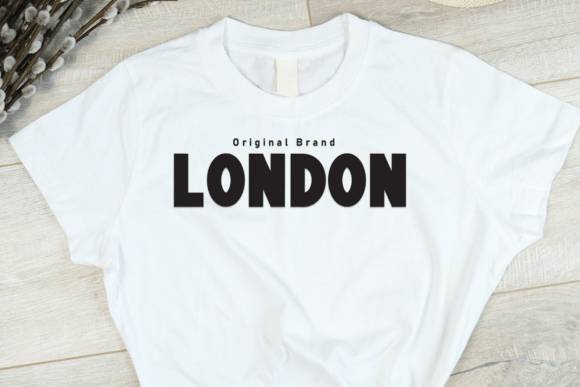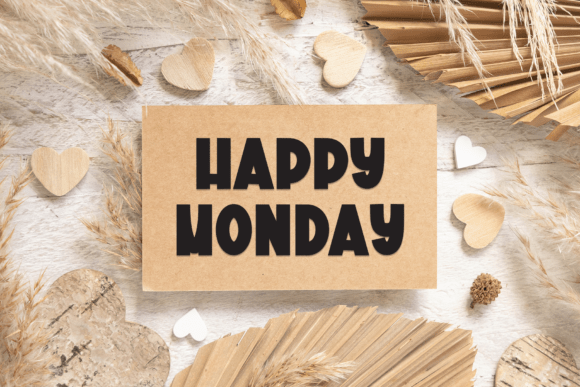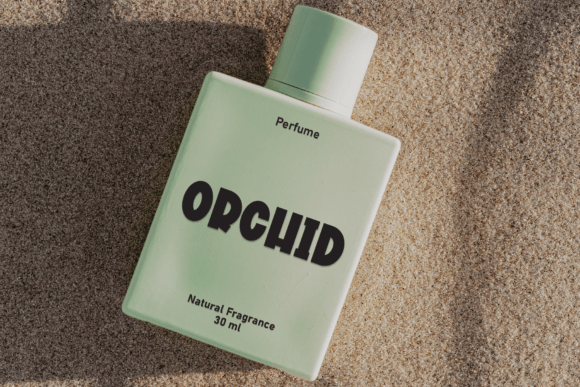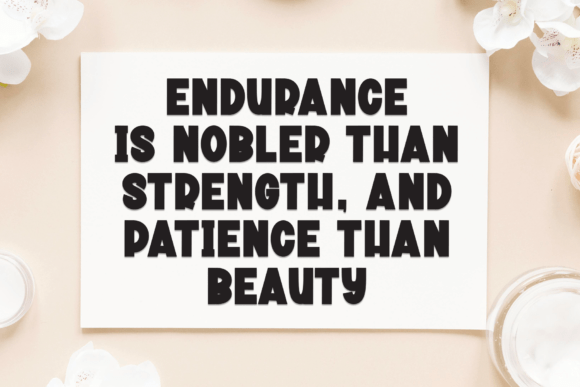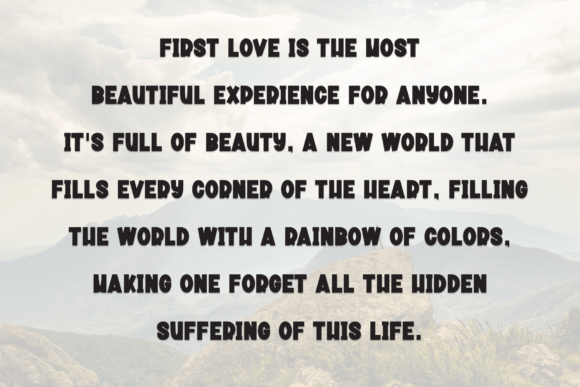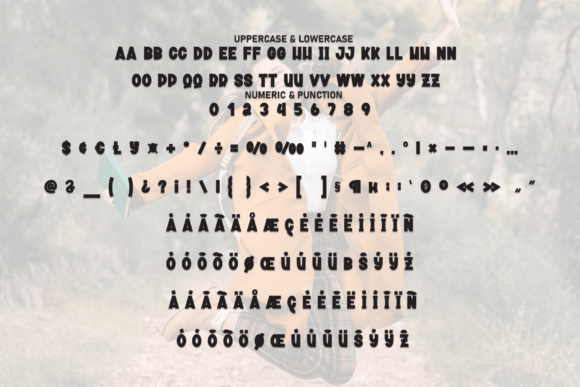
Introduction to Happy Wild Font
As designers, we’ve all been there – staring at a blank canvas, searching for that perfect spark to ignite our creative project. For some, it’s a burst of color, while for others, it’s a delicate touch of typography. And then, like a breath of fresh air, we stumble upon a font that truly makes our heart skip a beat. Welcome to the enchanting world of Happy Wild Font, a handcrafted display font that will leave you smitten and eager to create.
This free download is a design resource that promises to bring joy and whimsy to your projects. With its transparent background and high-quality design, Happy Wild Font is the perfect addition to any creative endeavor. Whether you’re crafting wedding invitations, festive greeting cards, or simply looking to add a playful touch to your designs, this font is sure to deliver.
Key Features of Happy Wild Font
- Includes 50 unique characters, including letters, symbols, and special characters, perfect for adding a touch of personality to your design.
- Perfect for use in logos, branding, and advertising materials, where a fun and playful font is required.
Honest Review: Happy Wild Font
I recently stumbled upon the Happy Wild Font and I’m excited to share my thoughts on this design resource. First off, let’s talk about what works well ✨ – the font’s high quality and unique design make it a great addition to any creative project. The Happy Wild Font features a beautiful, hand-drawn style that adds a touch of whimsy and personality to any text. Plus, it’s available for free download, which is a major plus in my book.
The Happy Wild Font also comes with a transparent background, which makes it super versatile and easy to use in various design contexts. Whether you’re working on a branding project, a digital illustration, or a web design, this font is sure to add some visual interest and flair.
Here are some of the key features of the Happy Wild Font:
- High-quality, unique design
- Hand-drawn style
Of course, no font is perfect, and I did encounter some limitations ⚠️ – the font’s size and weight options are limited, which may not be ideal for projects that require a lot of text customization. Additionally, the font may not be suitable for formal or professional projects, as its playful style may not be taken seriously.
Overall, I’m impressed with the Happy Wild Font and would definitely recommend it to designers looking for a fun and creative font to add some personality to their projects. Just be aware of its limitations and use it in contexts where its playful style will shine.
Tips for Getting the Most Out of Happy Wild Font
To get the most out of Happy Wild Font, use it on a transparent background to create a high-quality design. You can also experiment with different font sizes, colors, and styles to create a unique look for your creative project.
Common Use Cases for Happy Wild Font
Happy Wild Font is a versatile design resource that can be used in a variety of creative projects, including social media graphics, blog posts, and presentations. It’s also a great choice for designers looking for a high-quality font with a unique, wild feel.